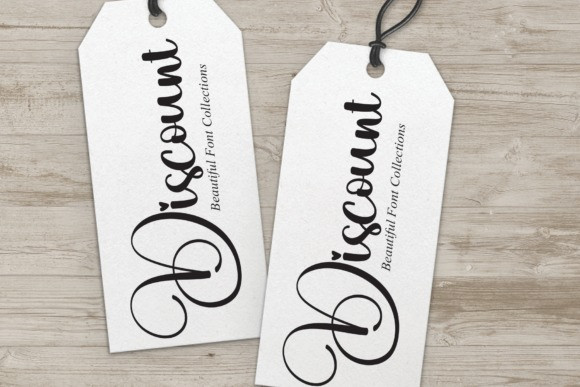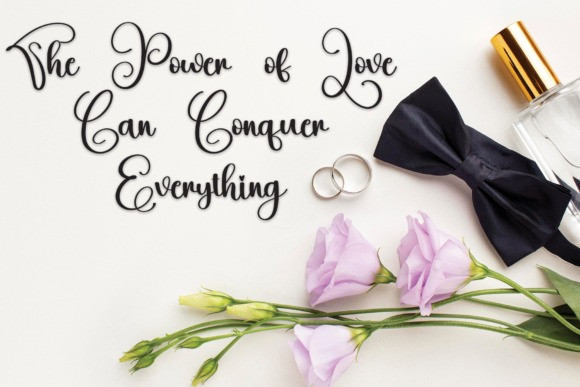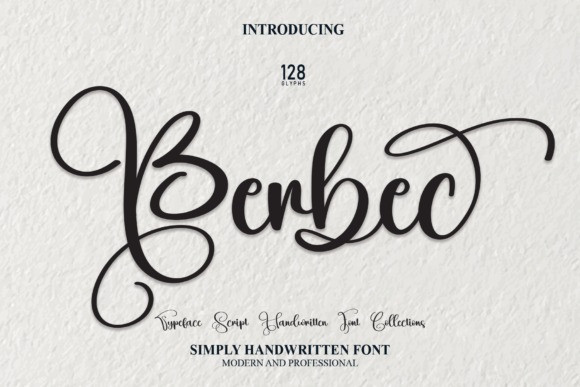
Berbec Font
Berbec Font is a beautiful, elegant script font that’s perfectly suited to wedding invitations and tasteful designs. Simply as a stylish text overlay to any background image or anything requiring a sprinkle of elegance.